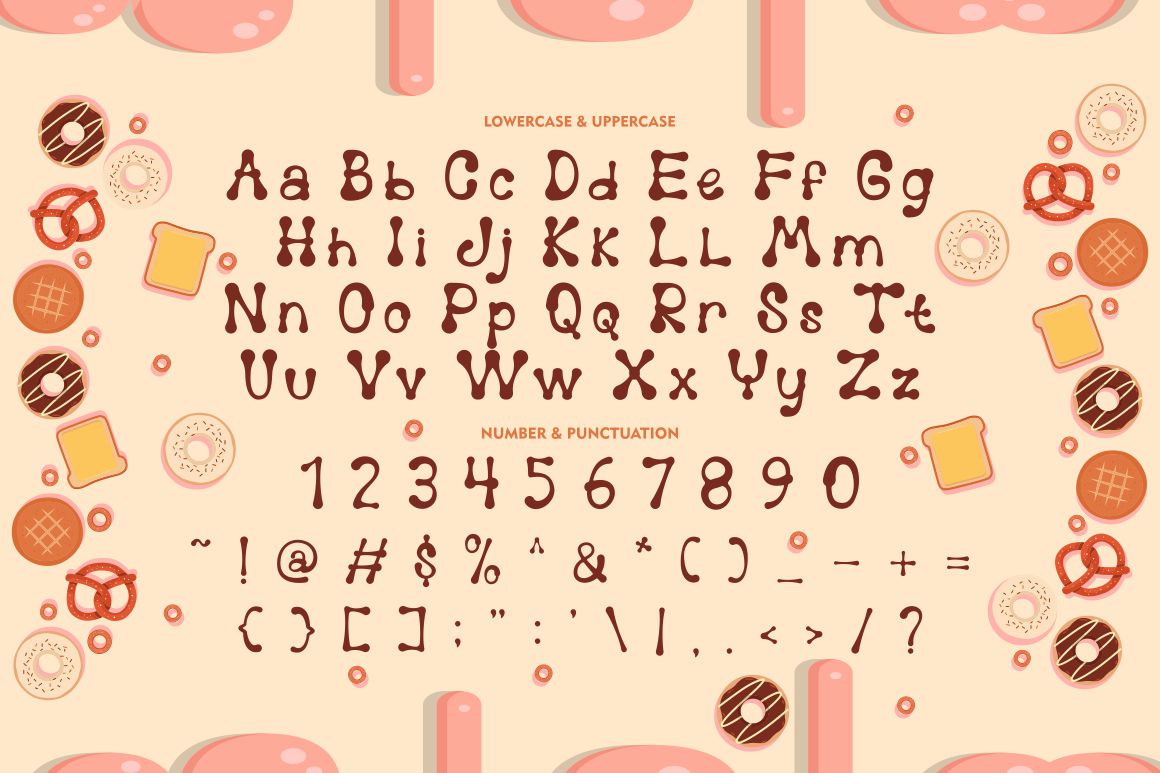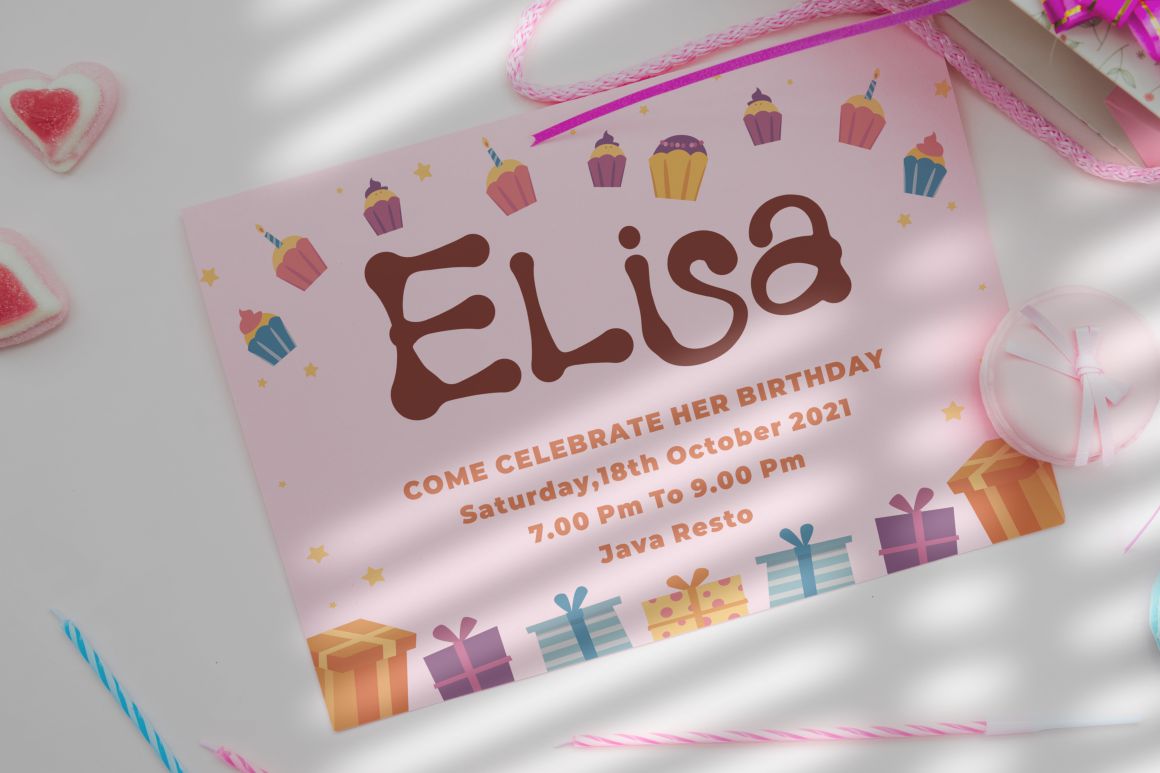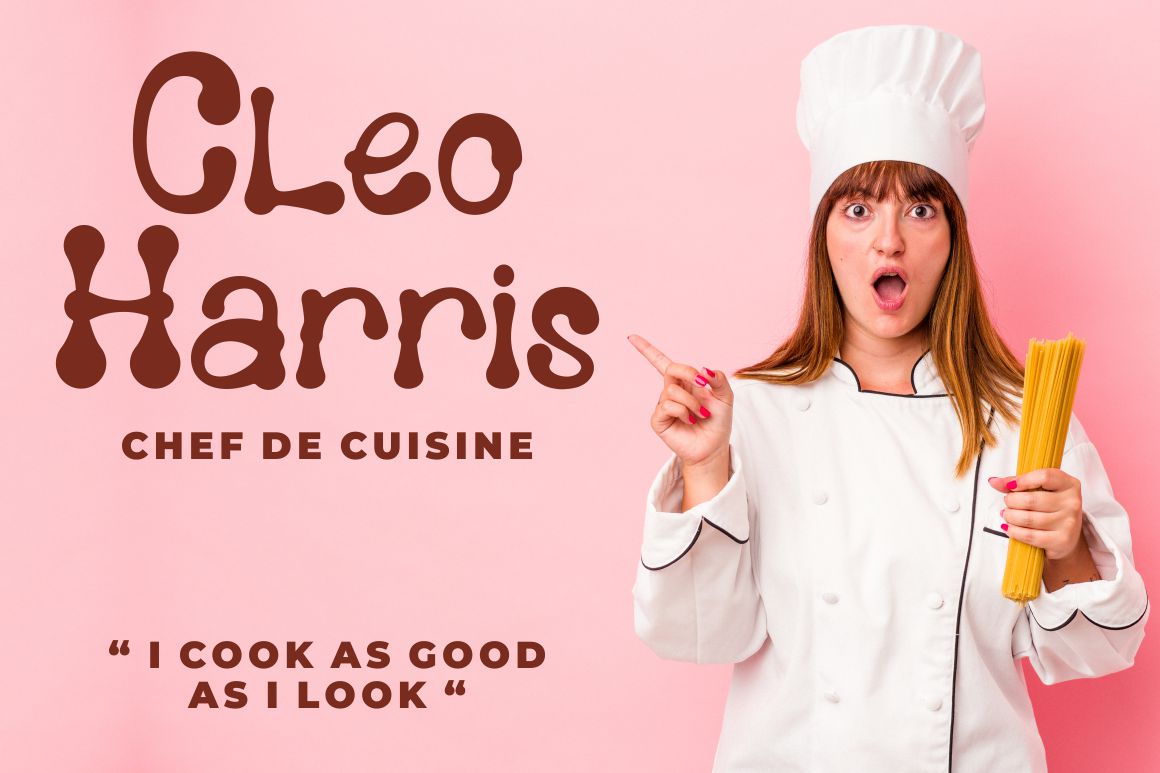
Looking for a fun and playful font to add some sweetness to your designs? Look no further than Melting Dessert Display Font from PutraCetol Studio. With its whimsical curves and bold strokes, this font is perfect for adding a touch of cuteness to any project related to food, desserts, or anything that needs a playful twist.
Melting Dessert Display Font features a unique and creative design that gives the impression that the letters are melting, creating a fun and quirky effect that is sure to catch the eye. The font includes a range of alternate characters, ligatures, and swashes, allowing you to customize your designs and create a look that is unique to your brand.
One of the best things about Melting Dessert Display Font is its multilingual support, which makes it ideal for projects in different languages. Whether you’re designing a menu for a cafe, a poster for a food festival, or an advertisement for a bakery, this font is sure to make your designs stand out from the crowd.